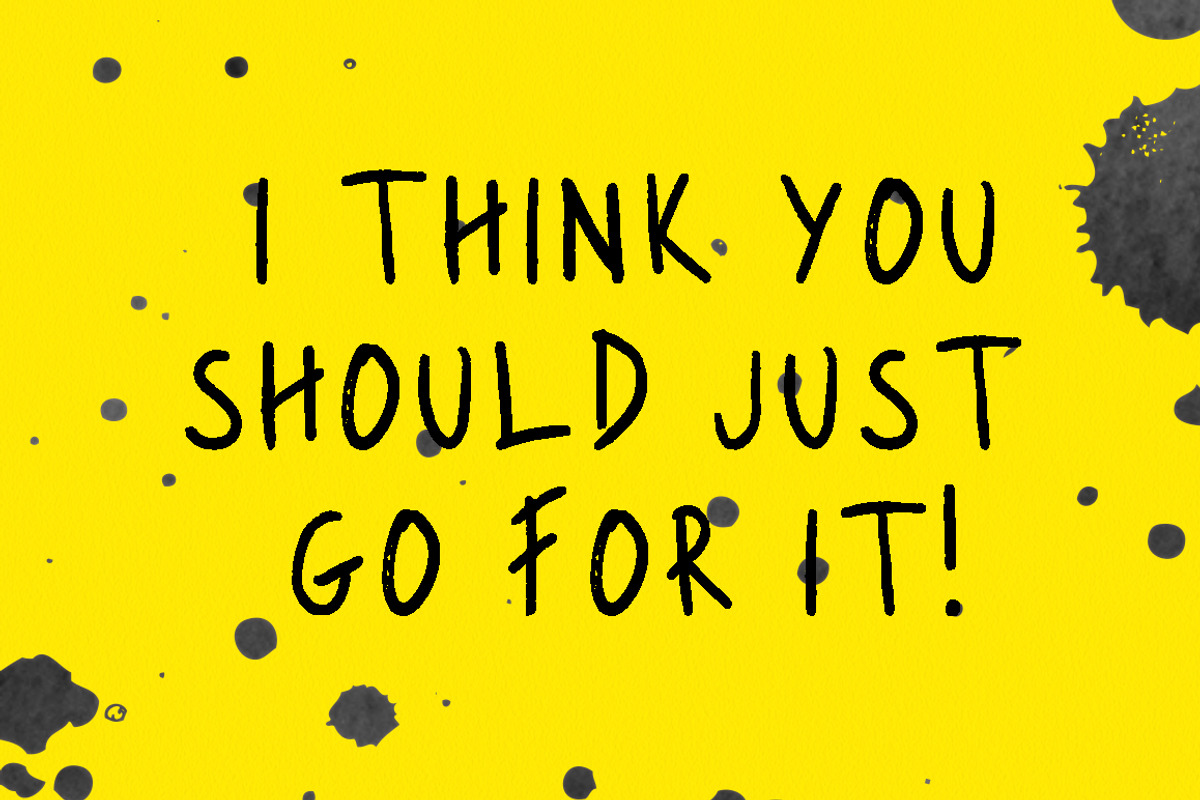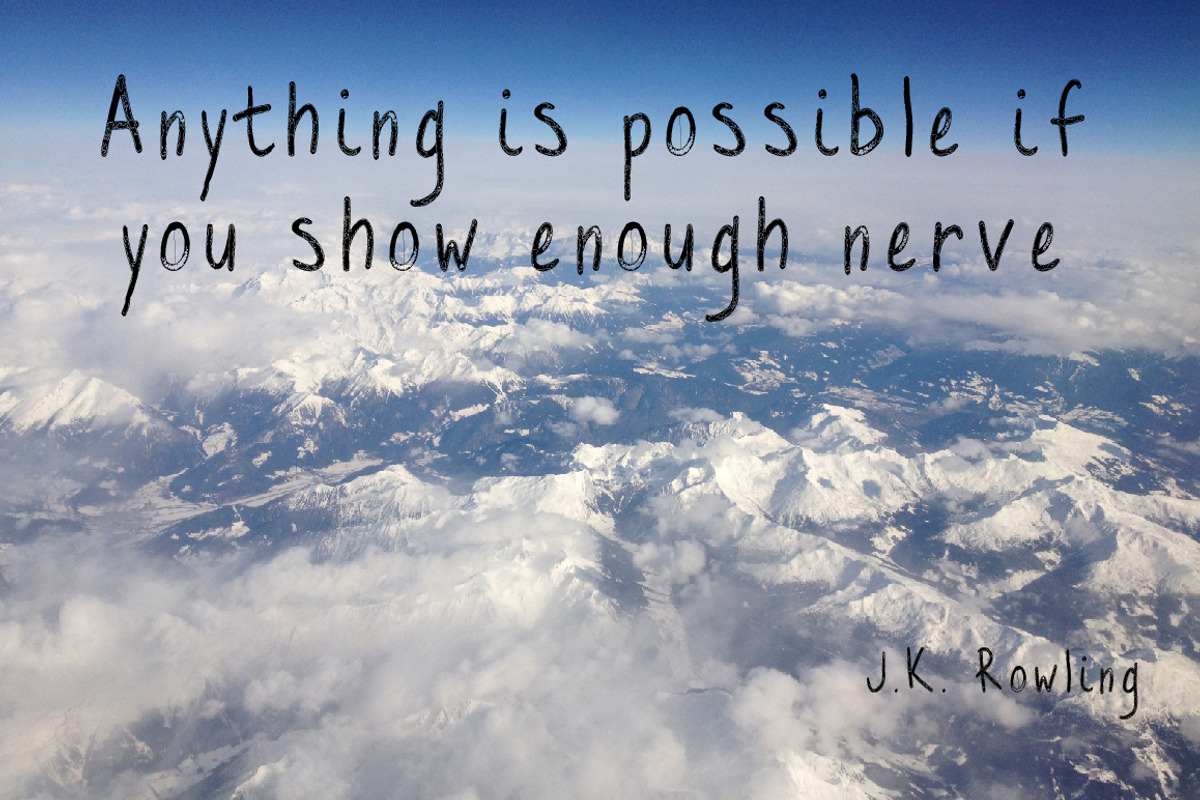
Grun-gee hand lettered font
Grun-gee hand lettered font by Emjwalker is a font selected for branding, posters, packaging, typography.
Why Grun-gee hand lettered font is worth a look
Grun-gee hand lettered font by Emjwalker fits naturally into Branding, posters, packaging, typography.